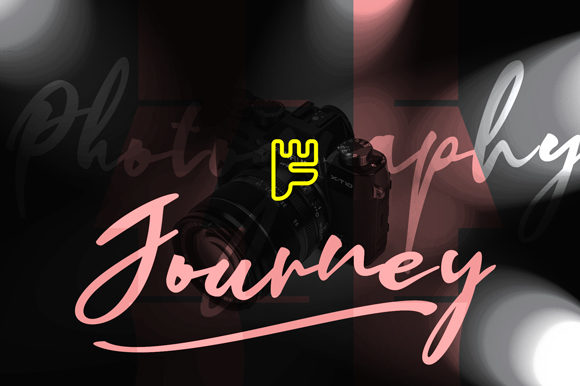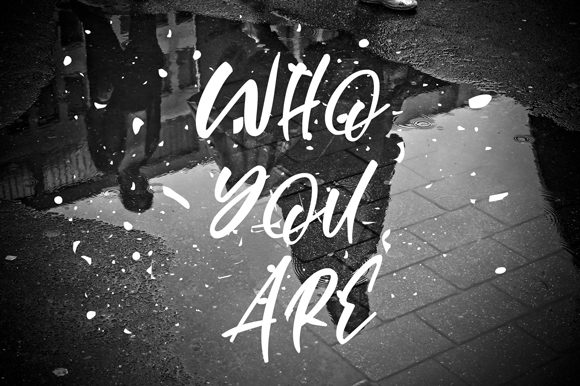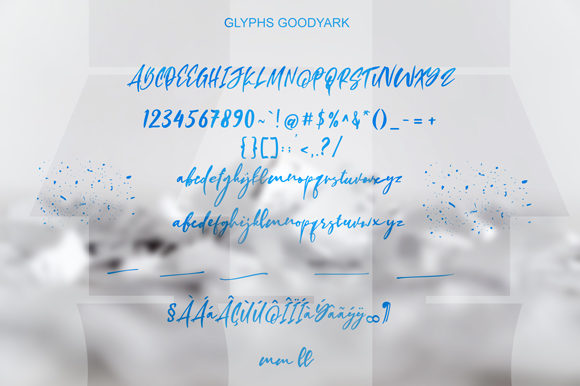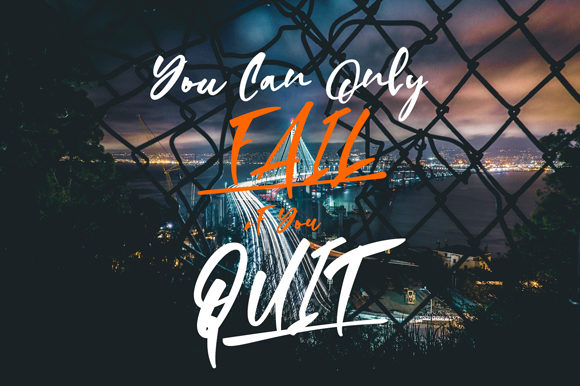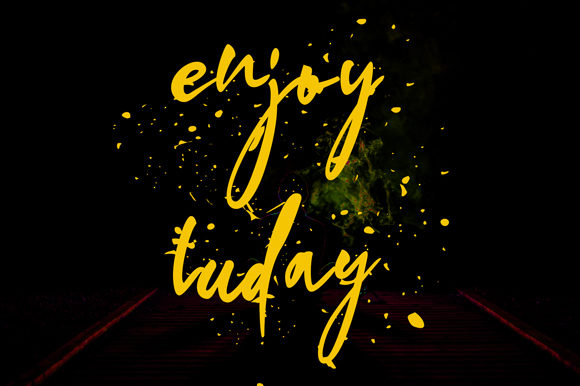
Introduction to Good Yark Font
Good Yark is a flowing and unique handwritten font.
Key Features of Good Yark Font
Why Choose Good Yark Font?
Good Yark Font offers exceptional quality and versatility, making it a valuable addition to your design toolkit. Whether you’re creating for personal projects or commercial use, Good Yark Font delivers professional results.